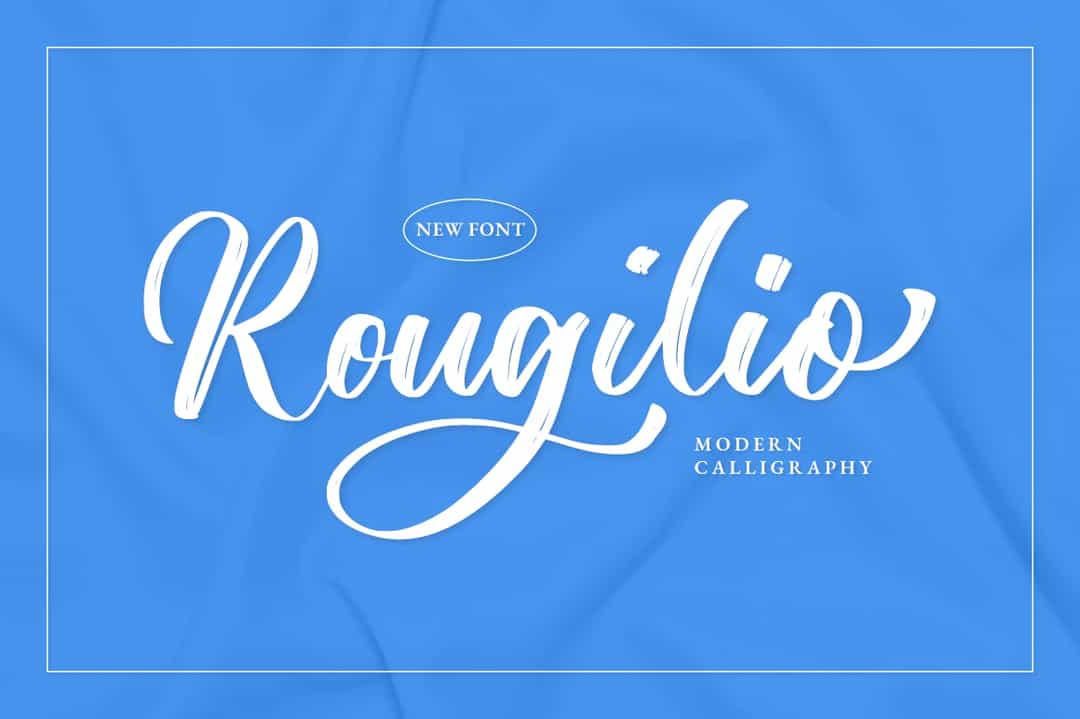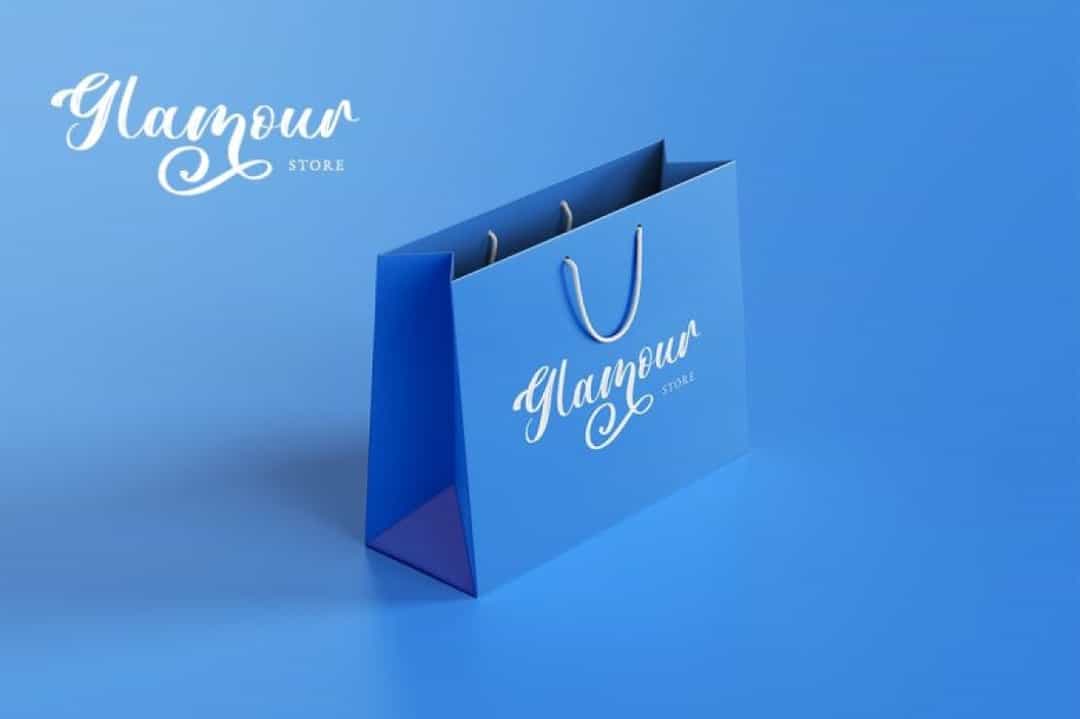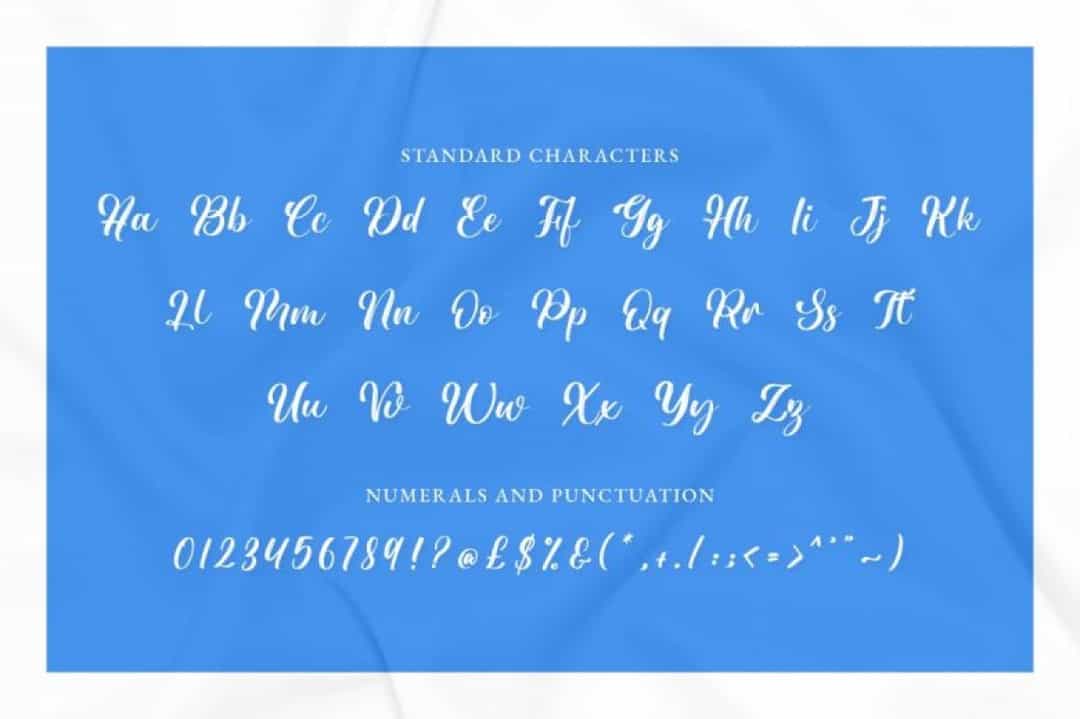
Rougilio is a magnificent brush script font designed with elegance in mind, perfect for Instagram captions or calligraphy projects around the house or DIY projects. No matter what creative endeavors arise from within you, Rougilio can turn any idea into art!